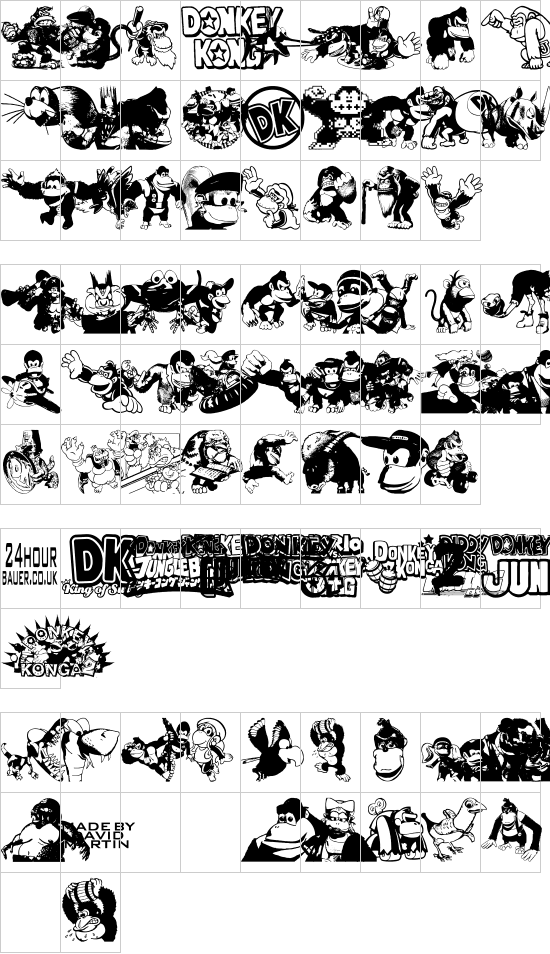
Donkey Kong World is a dingbat font packed with characters, icons, and motifs inspired by the classic arcade game and its jungle cast. Instead of letters, the keys deliver familiar sprites, barrels, and themed symbols rendered in a chunky, retro style that nods to early console and cabinet graphics.
It is built for gaming fan art, retro arcade tributes, T-shirt and sticker graphics, and playful social posts celebrating vintage video game culture. The imagery makes a fun source of accents and badges for nostalgia-themed projects. Donkey Kong World is free to download as a TrueType file, and you can preview the glyphs with your own keystrokes to find the icons you want before using them.